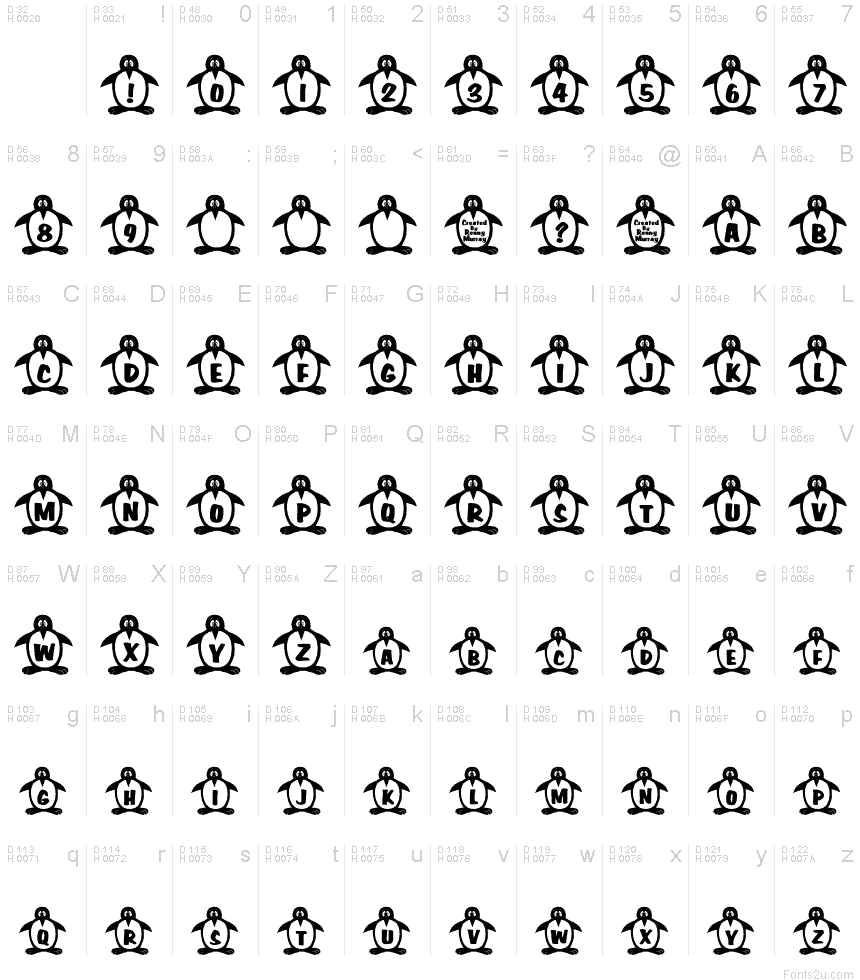
RM Penquin, created by Renny Murray, is a free cartoon display font built from plump penguin figures. Each capital sits inside a white belly, framed by flippers, webbed feet, and a small expressive face.
A children's publisher or playful product brand could use these illustrated letters for book covers, games, packaging, and merchandise. The repeated penguin motif turns wording into a cast of characters, making it especially apt for winter stories, zoo themes, and lighthearted animal projects.